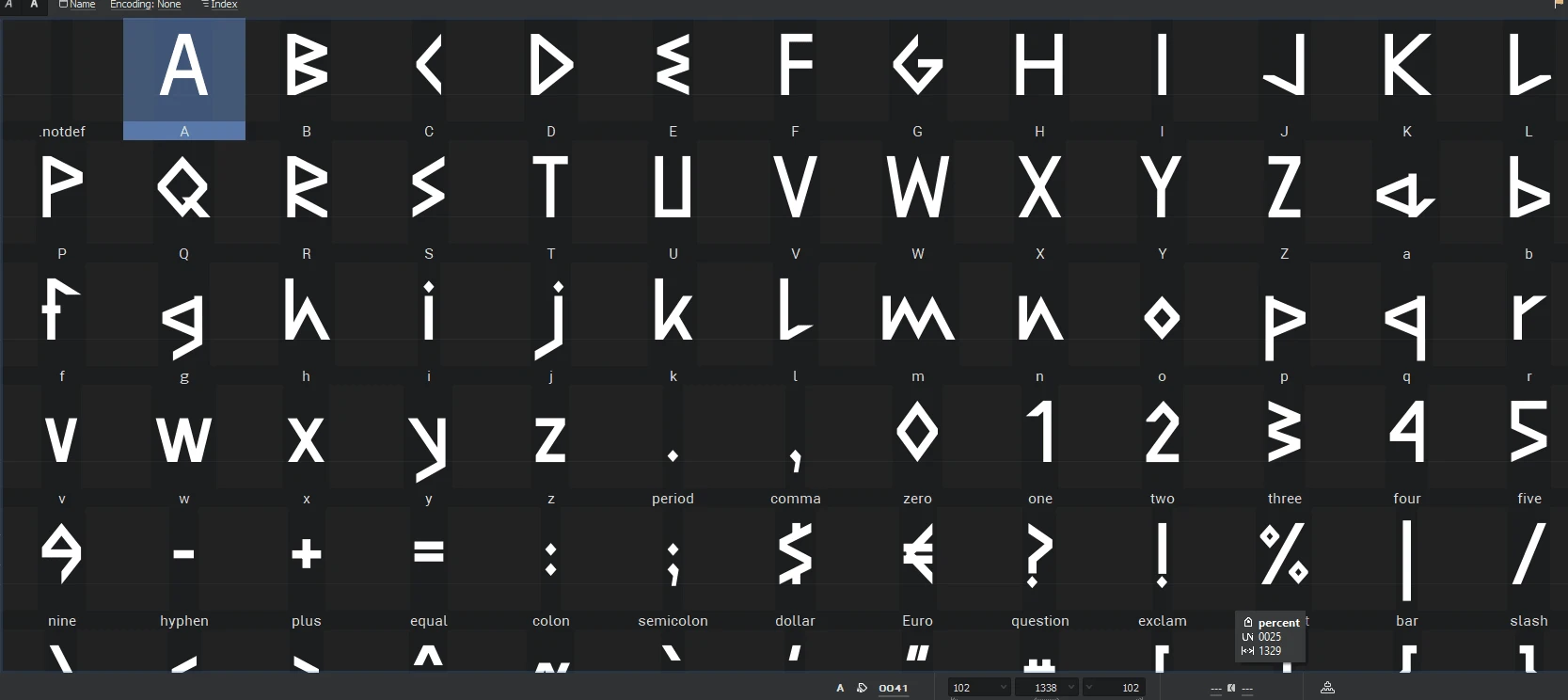
The client wants a runic-style font. He describes and provides some runic symbols that I must implement as a font. Successfully executed using Fontlab software.